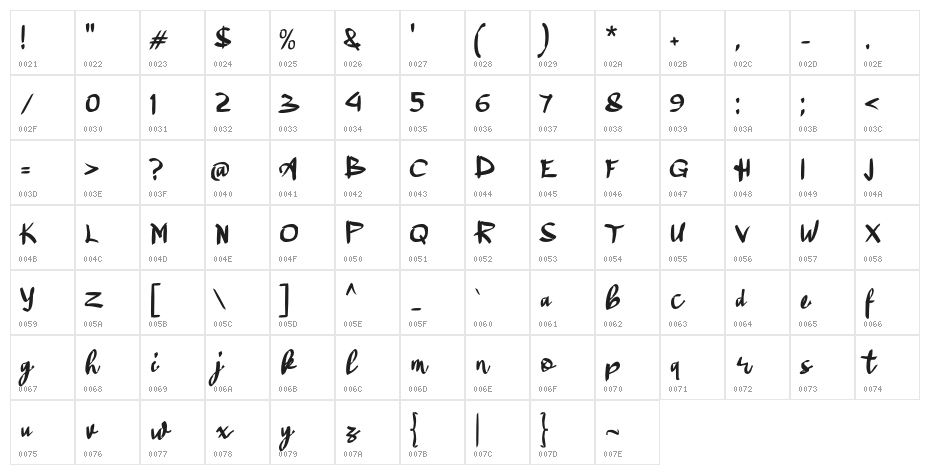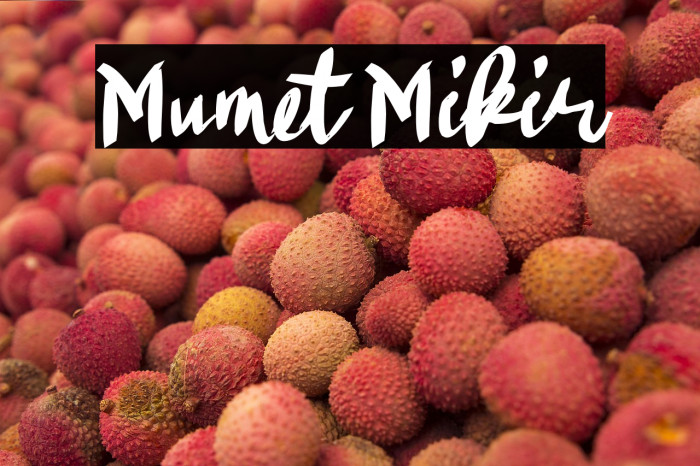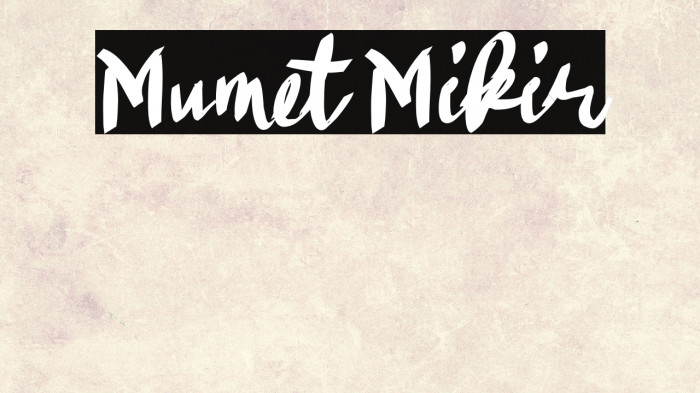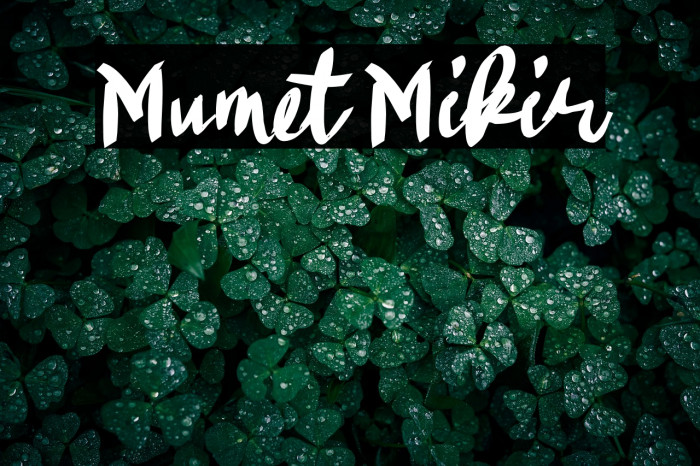
Mumet Mikir Font
Mumet Mikir Description
This font features a bold and expressive handwritten style, characterized by its dynamic and fluid strokes. The uppercase letters are bold and slightly angular, giving a sense of strength and energy. The lowercase letters maintain a consistent flow, with some characters having unique flourishes that add personality. Numbers are bold and clear, matching the overall style of the alphabet. The special characters are creatively integrated, maintaining the font's energetic and artistic feel. This font is ideal for projects that require a personal touch or a creative flair.
| Proposed Projects | Ideal for creative projects such as posters, branding, invitations, and artistic designs. |